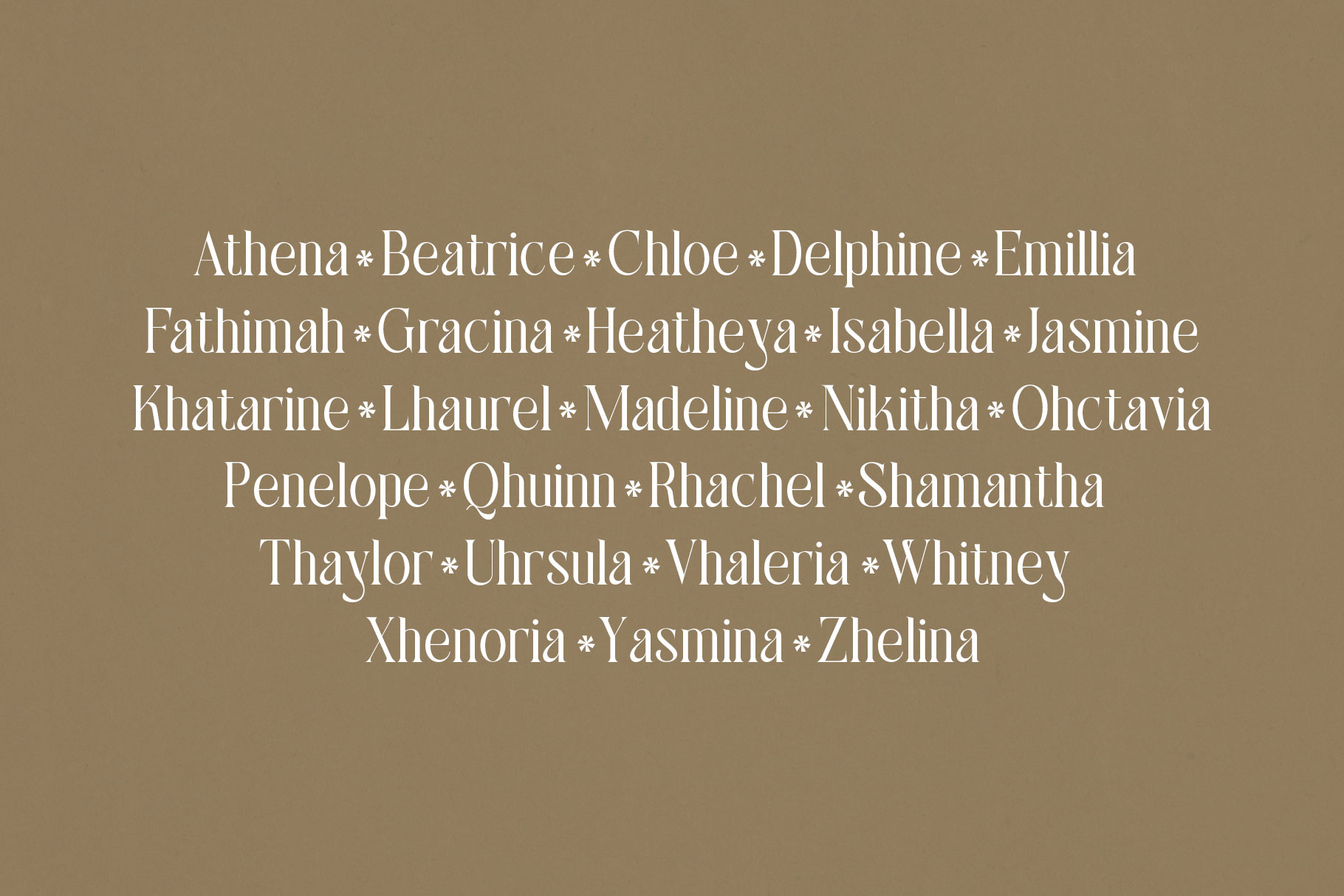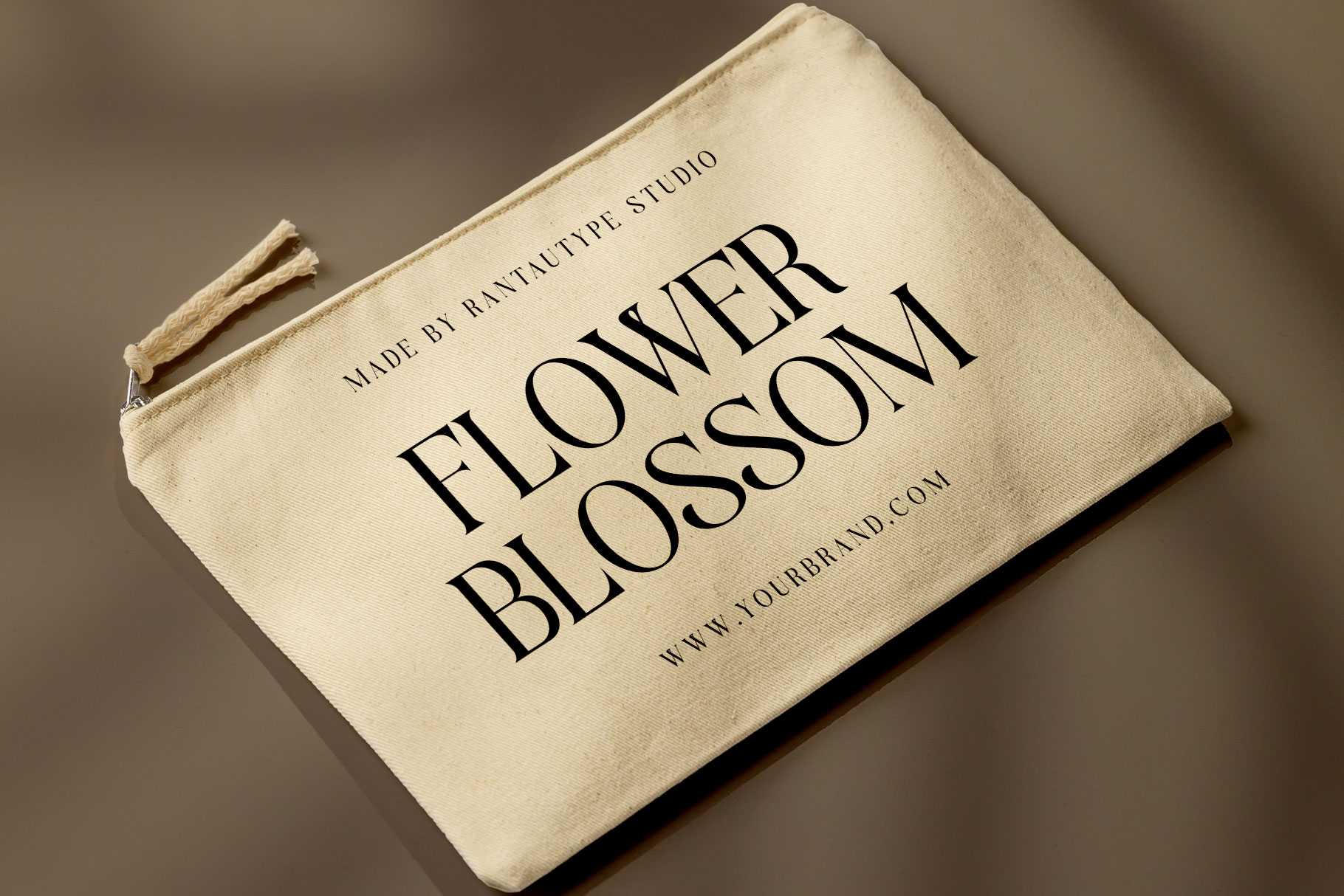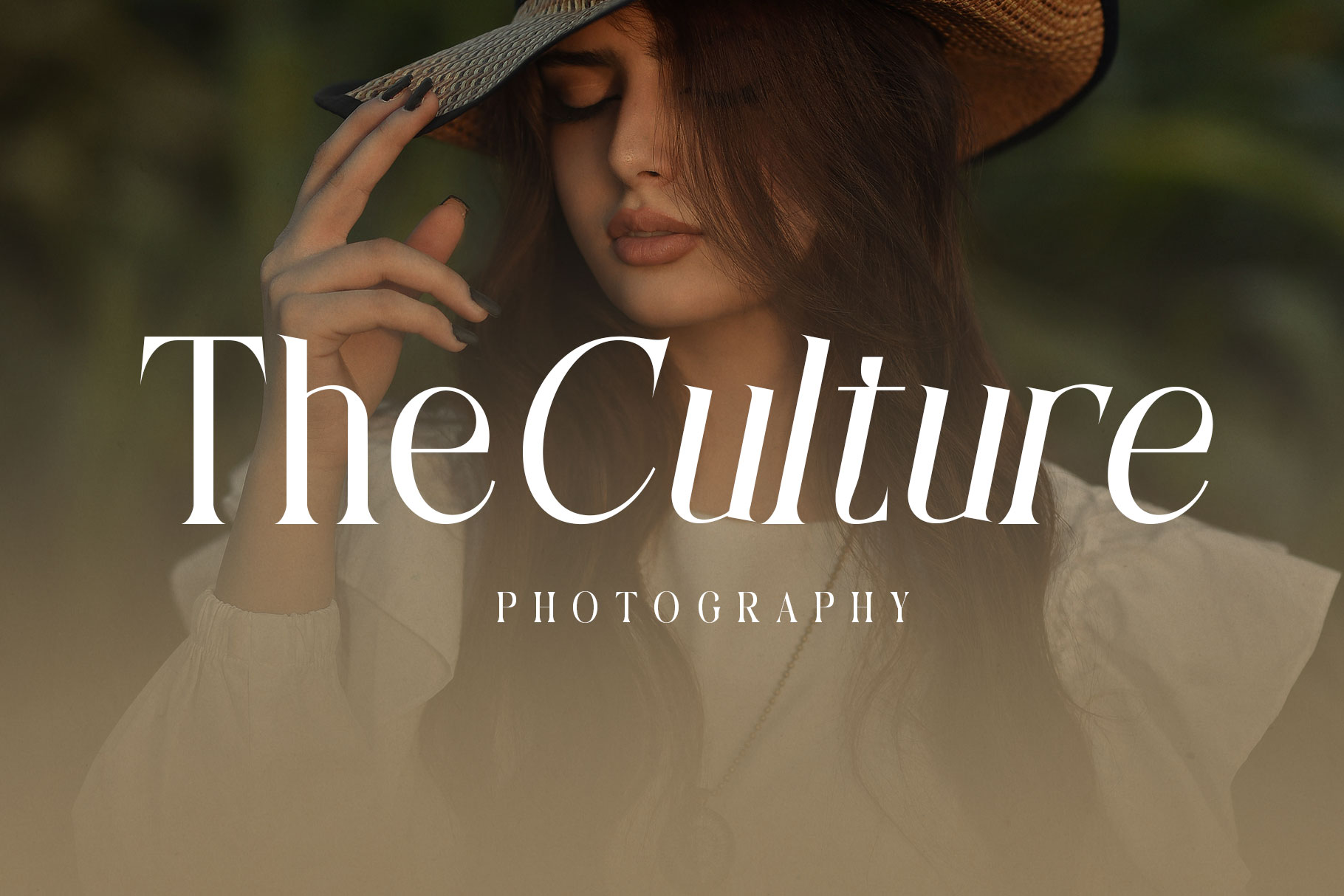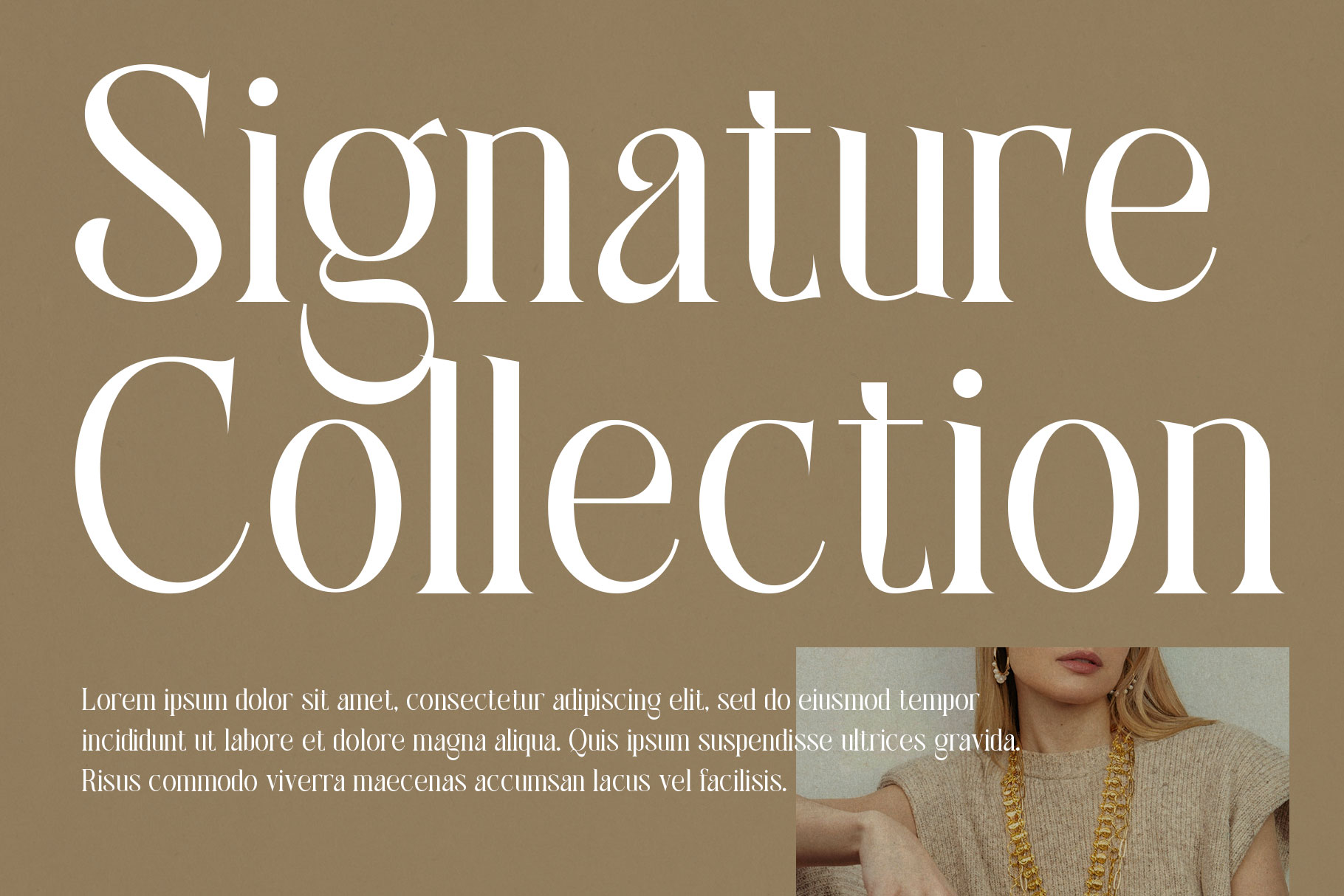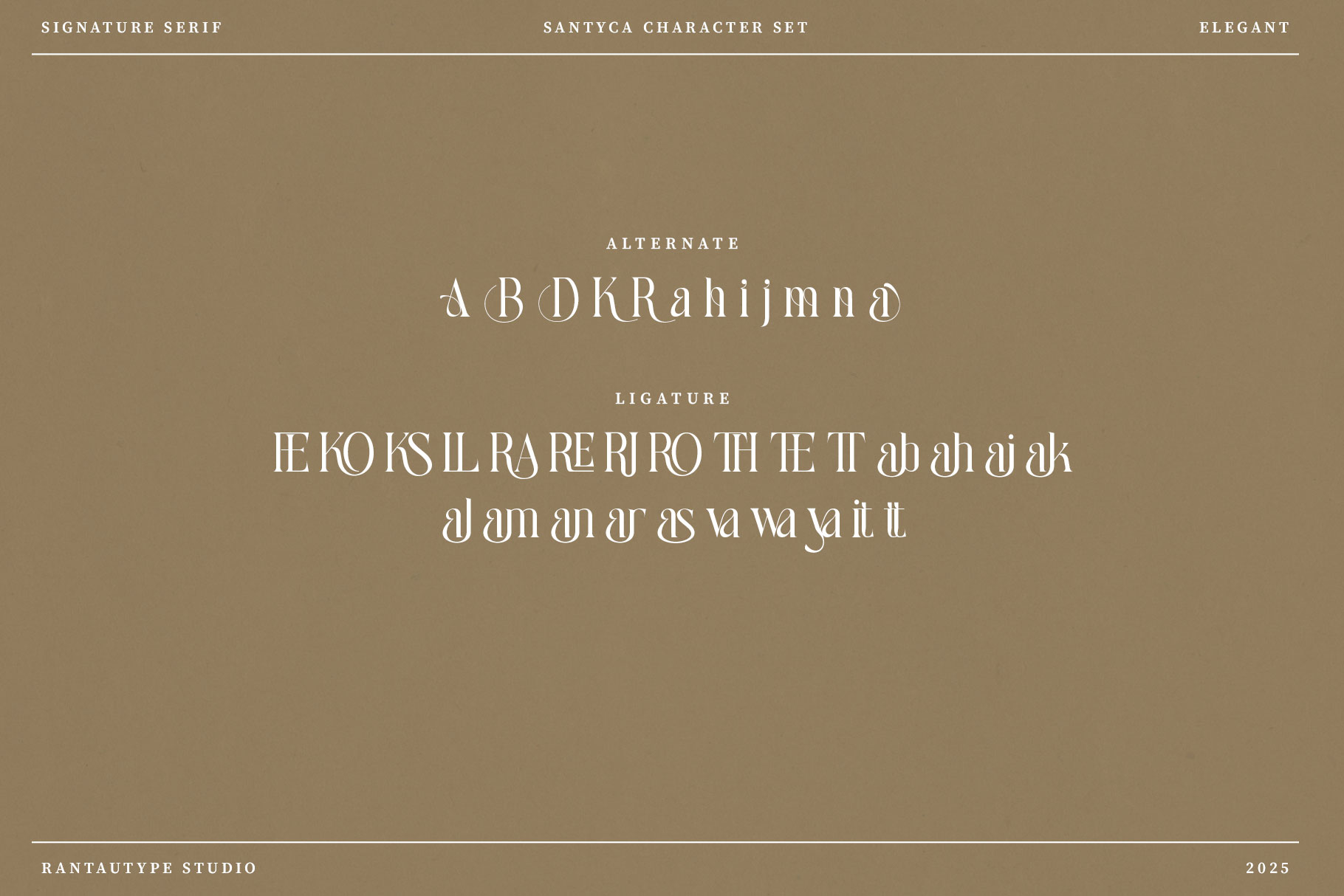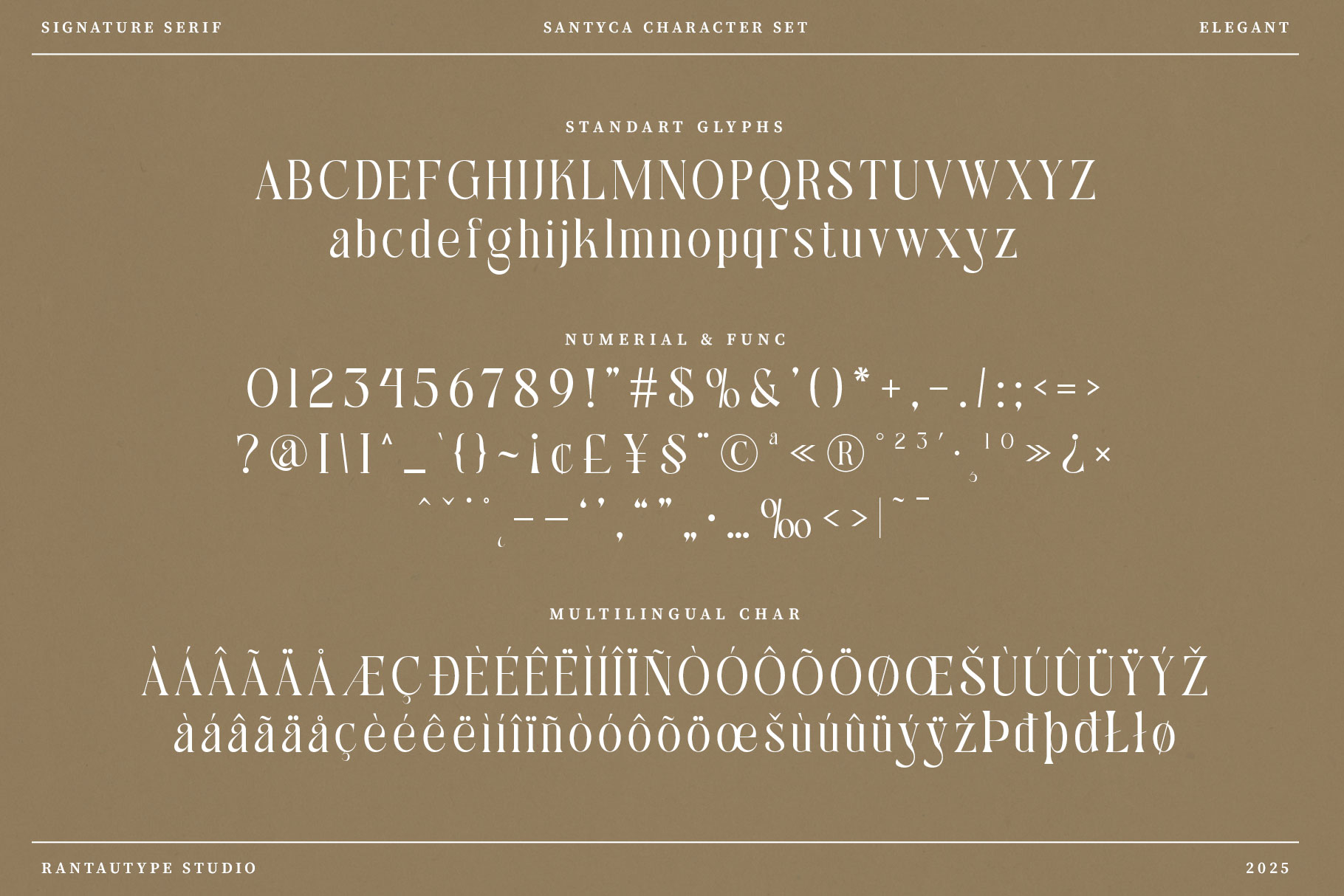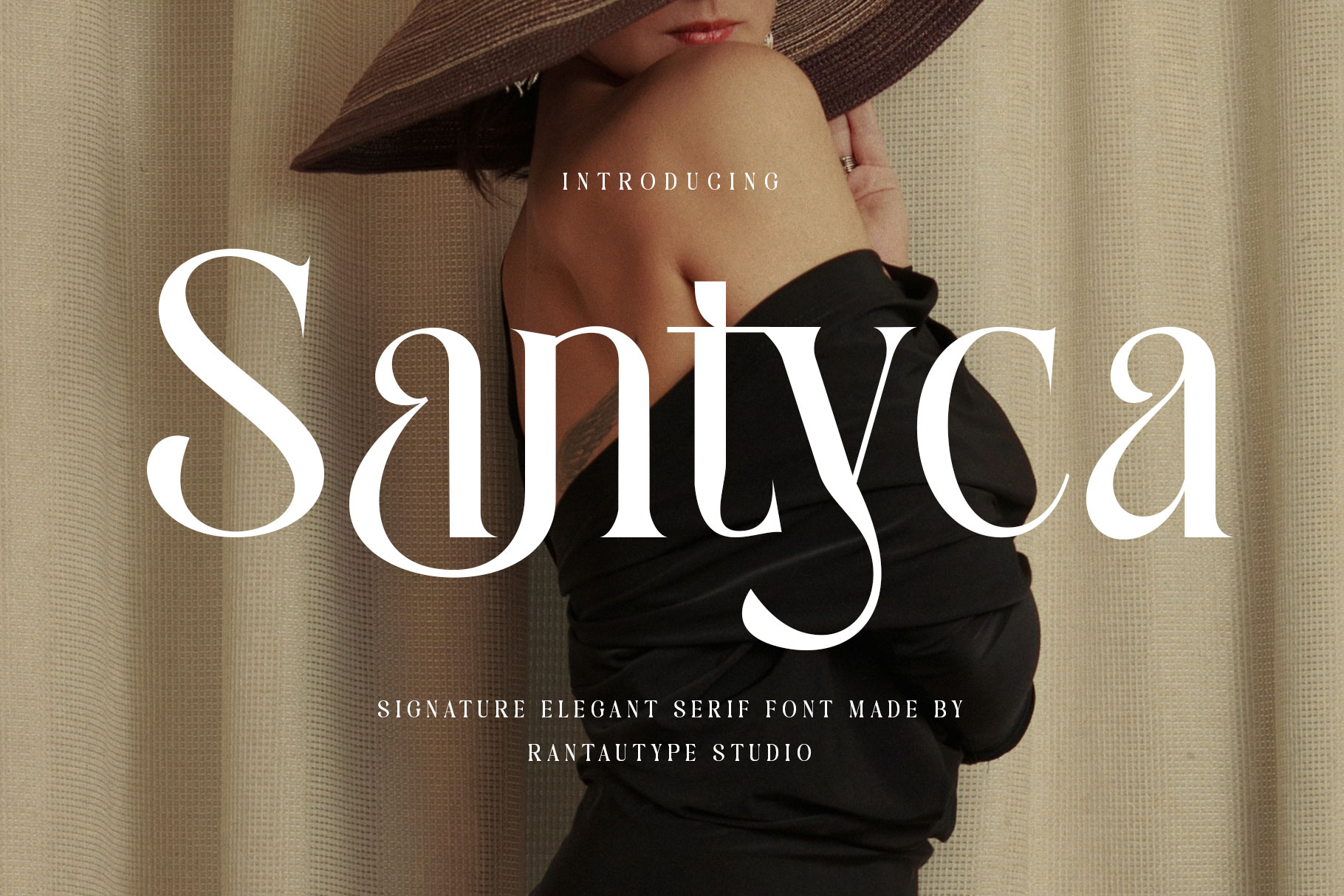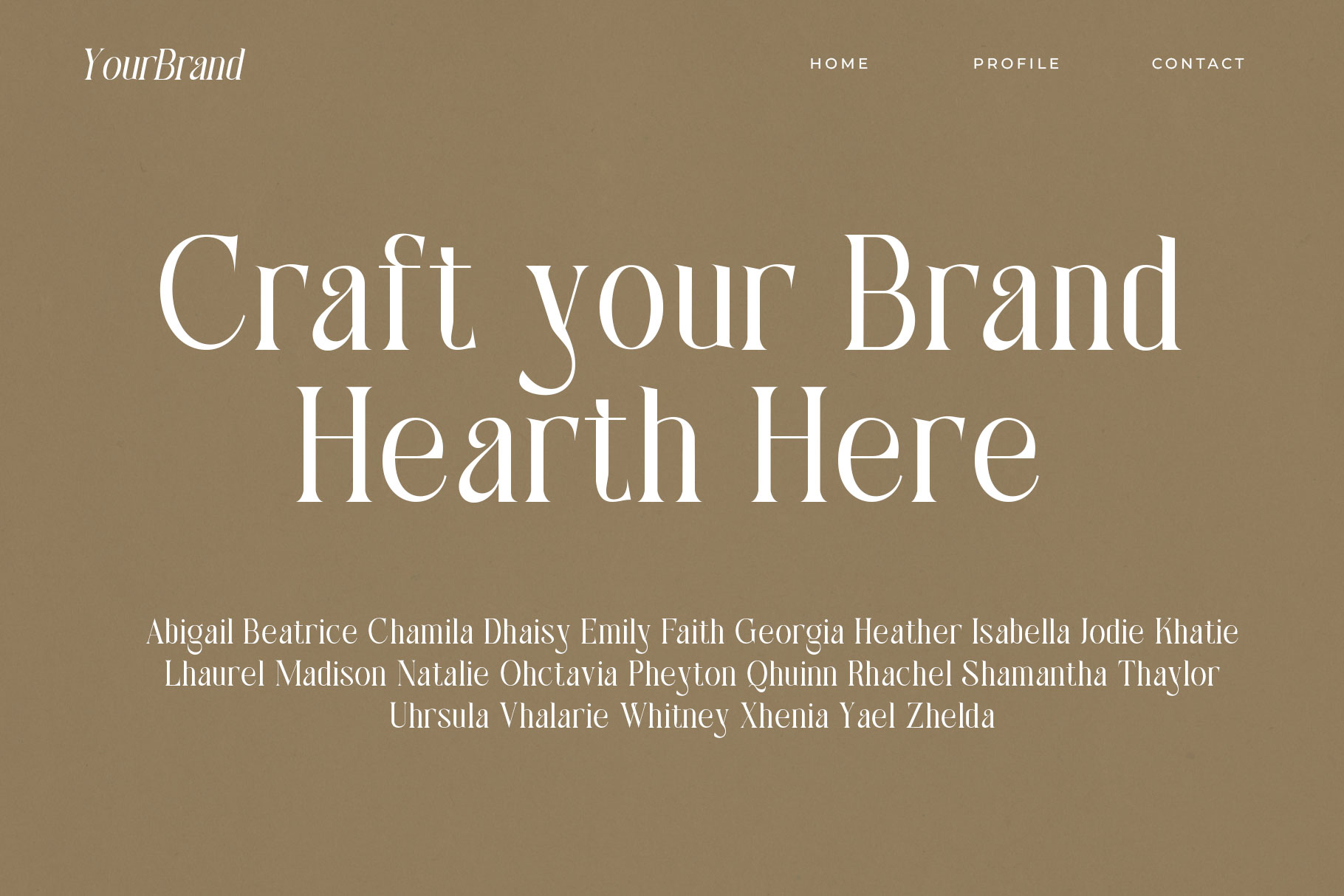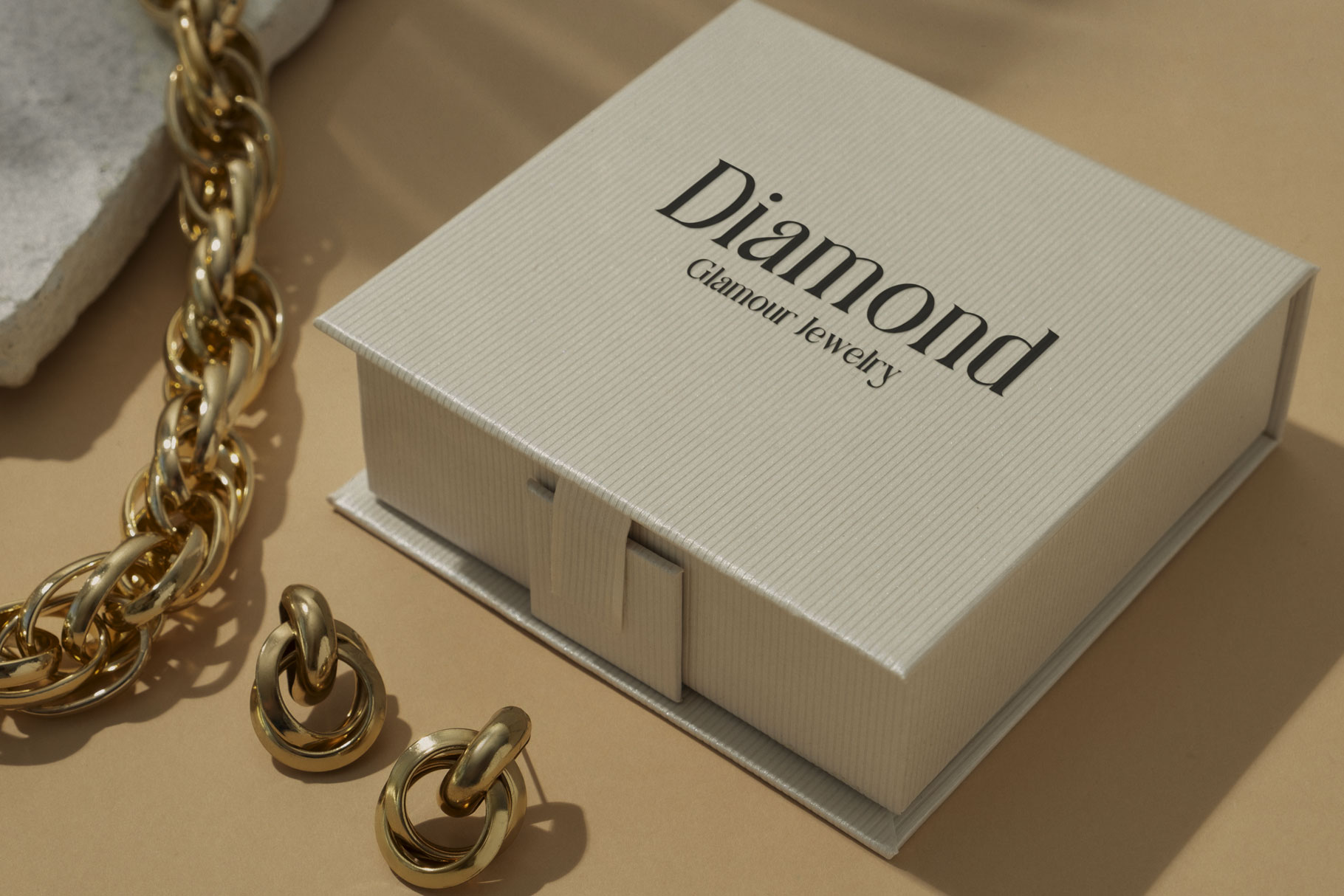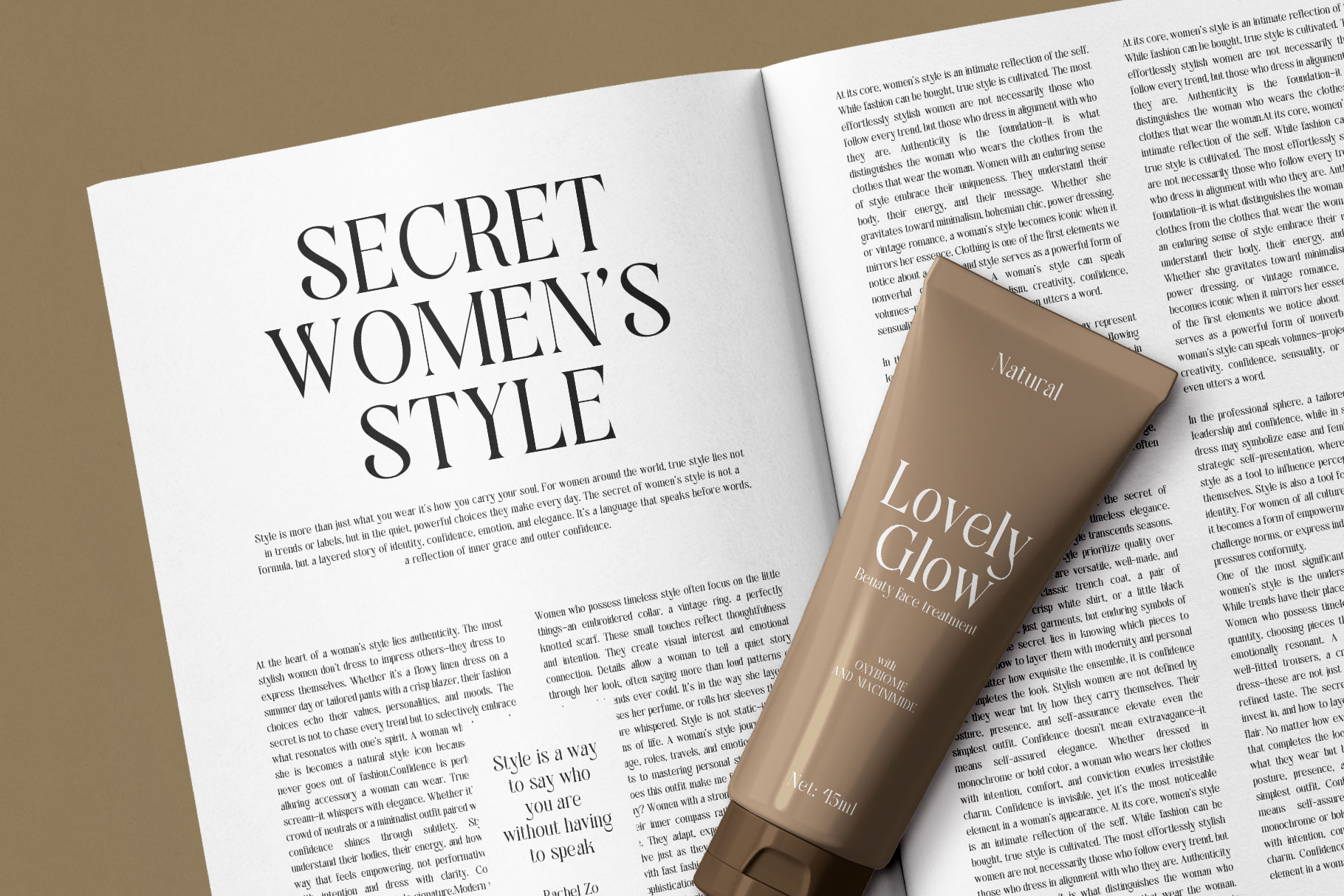
Santyca Signature Serif Font
Santyca is signature serif font collection embrace grace and grace. Santyca is a perfectly choice for any creative endeavor, chic, lifestyle design such as logotype, advertisements, watermark on photography, stationery, branding project, display and magazine, invitation, corporate brand, product design, label, business project and many other project with elegant touch.